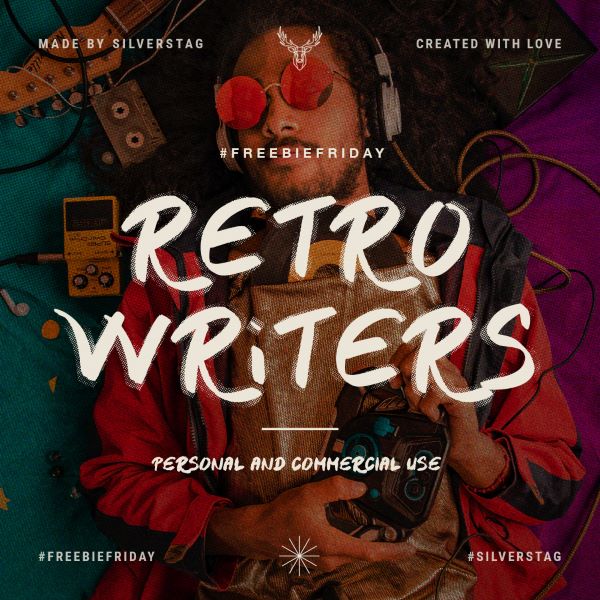
Retro Writers Font
Retro Writers by SilverStag Type Foundry is a quirky, grunge-textured display typeface that channels the raw, imperfect energy of hand-lettered signs, old typewriter ribbons, and worn-in print culture. Its genuinely handwritten character — supported by full uppercase and lowercase sets plus an uppercase alternates set — gives it a richness and variation that prevents any two compositions looking identical. Logos, social media graphics, quotes, and retro-themed branding all benefit from the texture and personality it brings. Free for personal and commercial use.